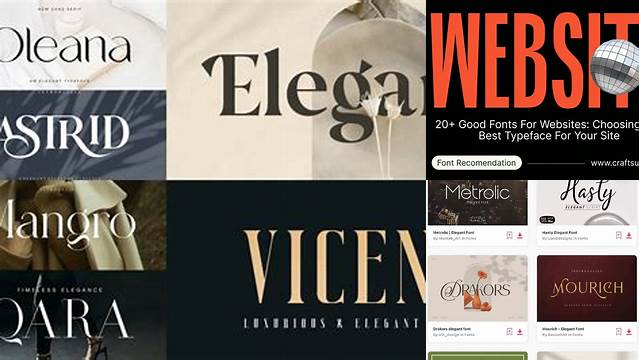
Elegant Fonts: A Guide To Sophisticated Typography
Choosing the right font can make or break your design. In the realm of typography, elegant fonts stand out for their ability to add a touch of sophistication, class, and refinement to any project. Whether you're designing a wedding invitation, crafting a brand identity, or revamping your website, selecting an elegant font is crucial for conveying the right message and aesthetic. Let's dive into the world of elegant fonts, exploring what makes them unique, how to choose the right one, and where to find some stunning examples.
What Defines an Elegant Font?
So, what exactly makes a font elegant? It's more than just looking pretty. Elegant fonts often possess a few key characteristics that set them apart from the rest. These include:
- Thin Strokes: Elegant fonts frequently feature delicate, thin strokes that contribute to a sense of lightness and airiness. This is particularly common in serif fonts, where the serifs themselves might be quite fine and refined.
- High Contrast: Many elegant fonts exhibit high contrast between thick and thin strokes. This contrast adds visual interest and can make the font appear more dynamic and sophisticated.
- Classic Proportions: Proportions play a vital role in the elegance of a font. Often, elegant fonts adhere to classic proportions that have been refined over centuries. Think of fonts inspired by traditional calligraphy or classical Roman inscriptions.
- Refined Serifs: If the font is a serif, the serifs themselves are usually carefully crafted and refined. They might be bracketed (with a smooth transition between the stroke and the serif) or unbracketed (with a more abrupt transition), but in either case, they contribute to the overall elegance of the design.
- Calligraphic Influences: Many elegant fonts draw inspiration from calligraphy. This can be seen in the flowing curves, the rhythmic strokes, and the overall sense of handcrafted quality.
- Subtle Flourishes: Some elegant fonts incorporate subtle flourishes or swashes that add a touch of ornamentation and visual interest. However, these flourishes are typically used sparingly, as too much ornamentation can detract from the font's elegance.
Serif vs. Sans-Serif: Which is More Elegant?
When it comes to elegant fonts, both serif and sans-serif options can work well, depending on the specific design and context. Traditionally, serif fonts have been associated with elegance and formality, while sans-serif fonts have been seen as more modern and minimalist. However, this is not a hard-and-fast rule. Some sans-serif fonts can be incredibly elegant, thanks to their clean lines, balanced proportions, and refined details. Ultimately, the choice between serif and sans-serif depends on the overall aesthetic you're trying to achieve.
How to Choose the Right Elegant Font
Alright, so you know what makes a font elegant, but how do you go about choosing the right one for your project? Here are a few tips to keep in mind:
- Consider Your Brand: First and foremost, think about your brand identity. What kind of message do you want to convey? If you're creating a luxury brand, you might opt for a classic serif font with high contrast and refined details. If you're going for a more modern and understated elegance, a clean sans-serif font might be a better choice.
- Think About Readability: Elegance shouldn't come at the expense of readability. Make sure the font is easy to read, especially in body text. Avoid fonts that are too ornate or have overly thin strokes, as these can be difficult to read at smaller sizes.
- Pay Attention to Hierarchy: Use different font weights and sizes to create a clear visual hierarchy. For example, you might use a bold, elegant font for headings and a more restrained font for body text. This will help guide the reader's eye and make your design more organized and accessible.
- Experiment with Different Combinations: Don't be afraid to experiment with different font combinations. Pairing an elegant serif font with a clean sans-serif font can create a visually interesting and balanced design. Just make sure the fonts complement each other and don't clash.
- Test, Test, Test: Before you finalize your font choice, test it out in different contexts. See how it looks on different devices and in different browsers. Get feedback from others to make sure the font is communicating the message you intend.
Where to Find Elegant Fonts
Now that you know what to look for, where can you find some elegant fonts? Here are a few resources to check out:
- Google Fonts: Google Fonts offers a wide variety of free fonts, including many elegant options. Some popular choices include Playfair Display, Montserrat, and Raleway.
- Adobe Fonts: If you have an Adobe Creative Cloud subscription, you have access to Adobe Fonts, which offers a vast library of high-quality fonts. Some elegant options include Garamond Premier Pro, Minion Pro, and Proxima Nova.
- MyFonts: MyFonts is a popular online marketplace for fonts. You can find a huge selection of both free and paid fonts, including many elegant options from independent designers.
- Don't Be Afraid to Break the Rules: While it's important to follow best practices, don't be afraid to experiment and break the rules. The most important thing is to create a design that is visually appealing and effectively communicates your message.
Conclusion: Embrace the Elegance
Elegant fonts are a powerful tool for adding sophistication and style to your designs. By understanding what makes a font elegant and following the tips outlined above, you can choose the perfect typeface for your next project. So go ahead, embrace the elegance, and create something beautiful!